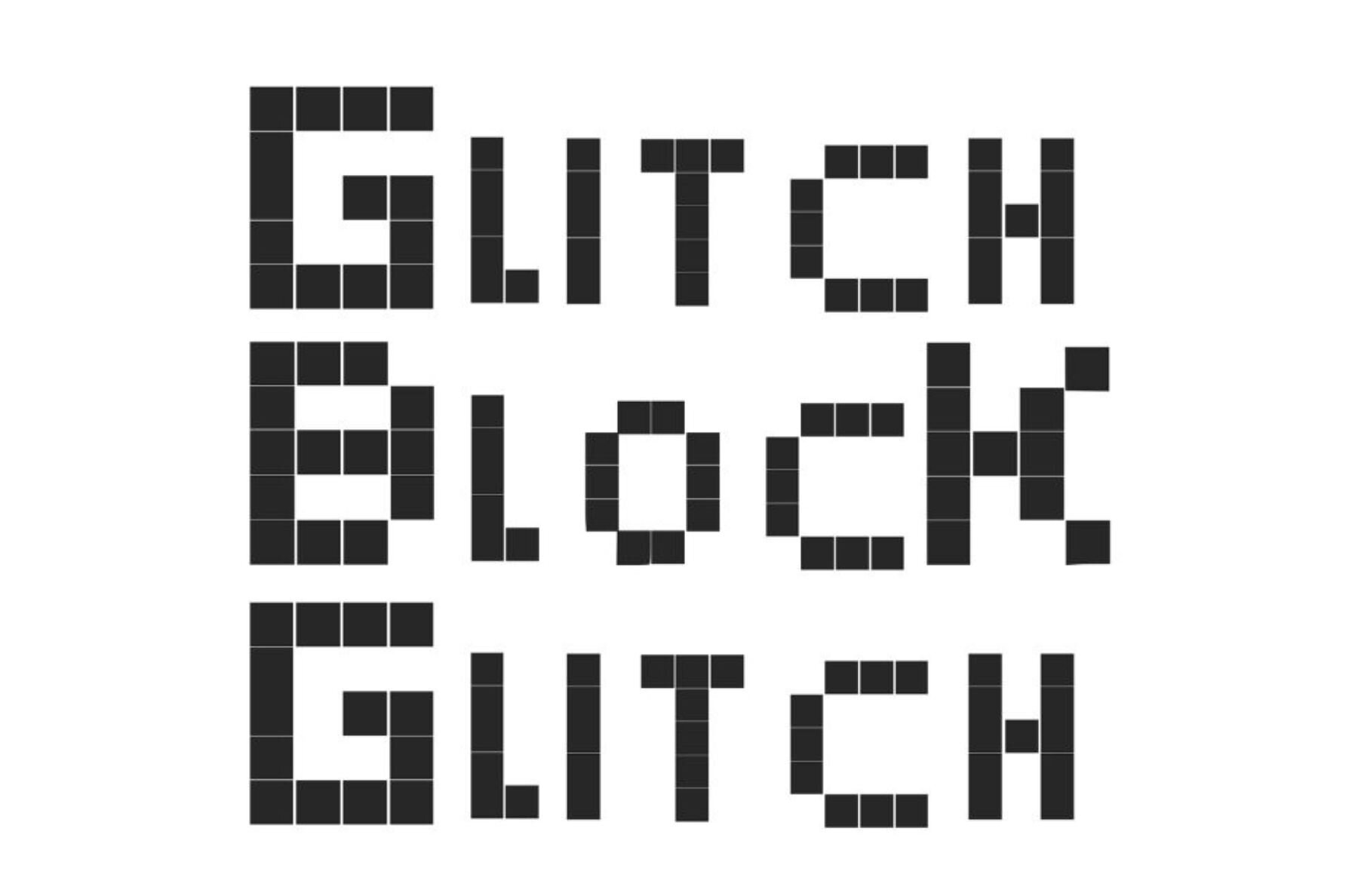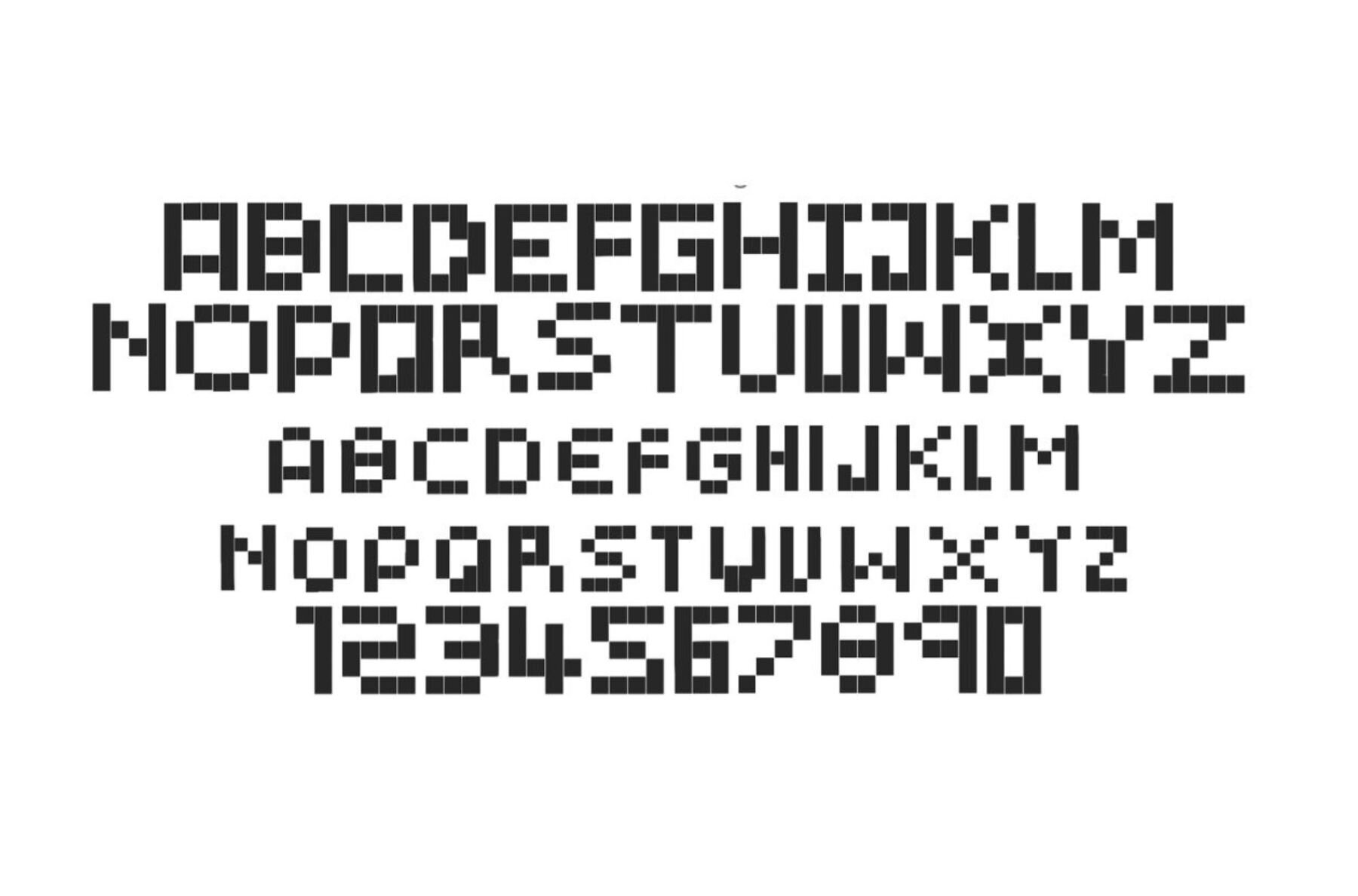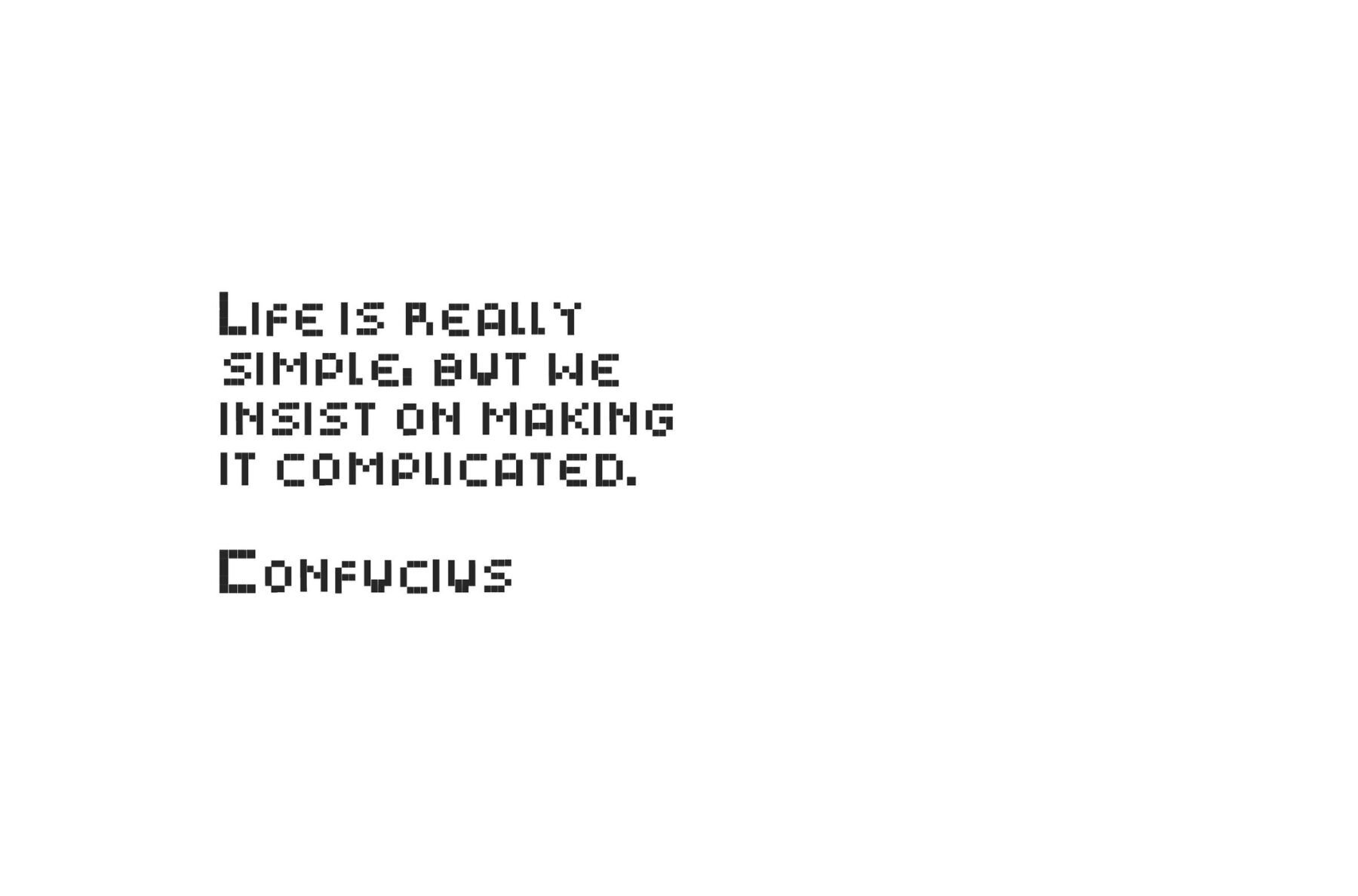
Glitch Block Font
Glitch Block Regular
Inject a dose of nostalgia into your design projects with Glitch Block, the monospaced typeface with a unique glitched-up character. Perfectly crafted for those seeking a vintage vibe, this font carries a distinct retro charm that effortlessly transforms any design into a masterpiece. Glitch Block not only provides a stylish, retro appearance but also creatively distorts the norm to catch the eye. Incorporate this typeface into your portfolio today and watch your designs transform.Glitch Block: A Retro Monospaced Typeface
Features of Glitch Block